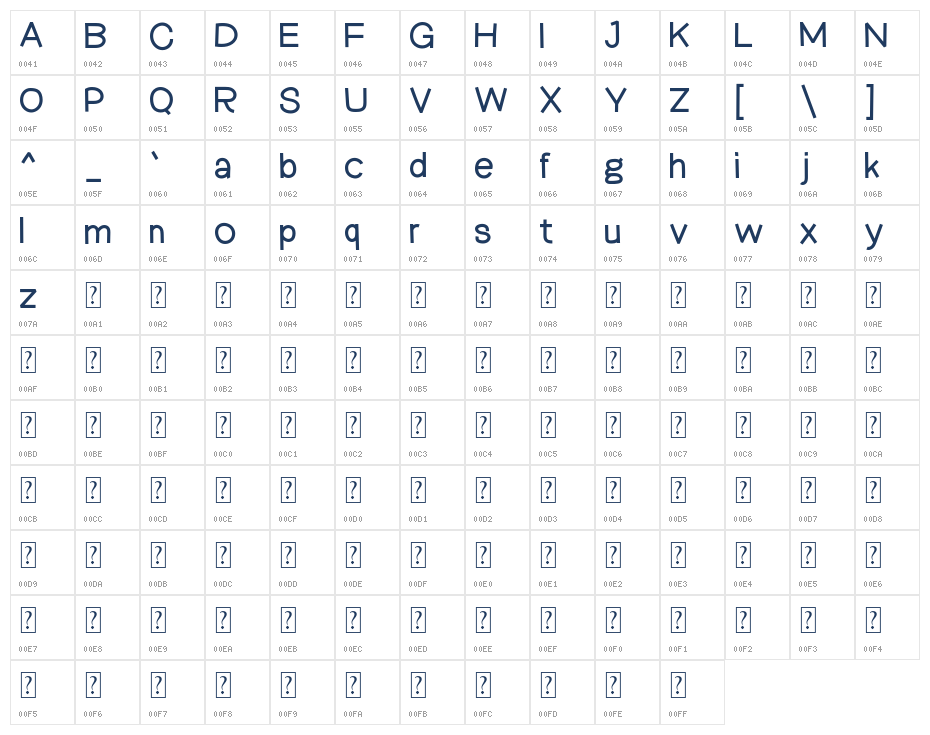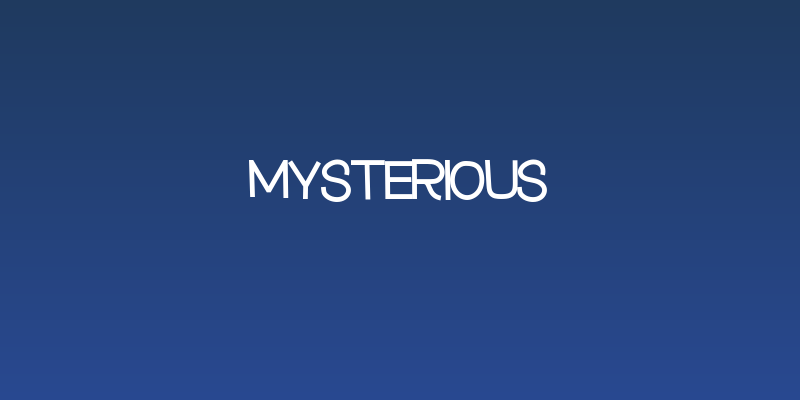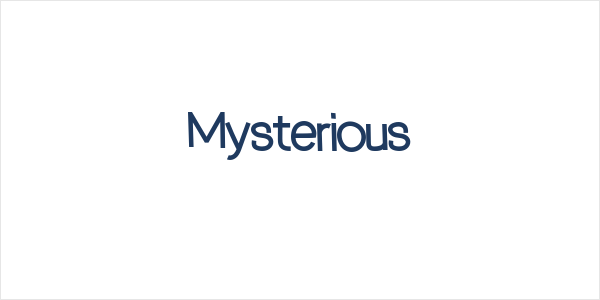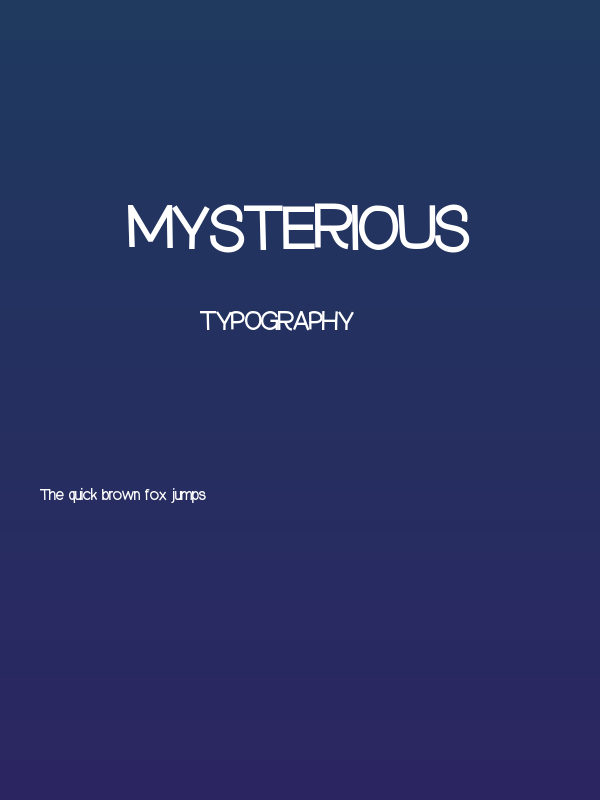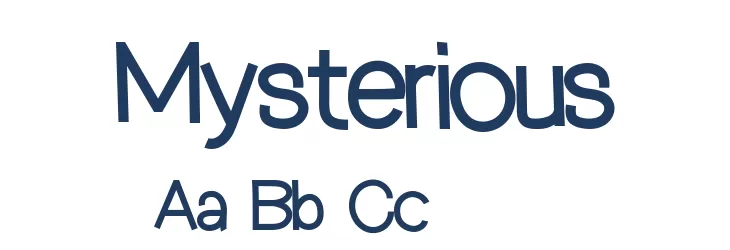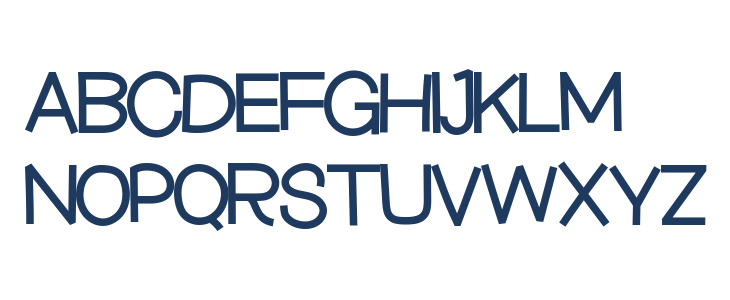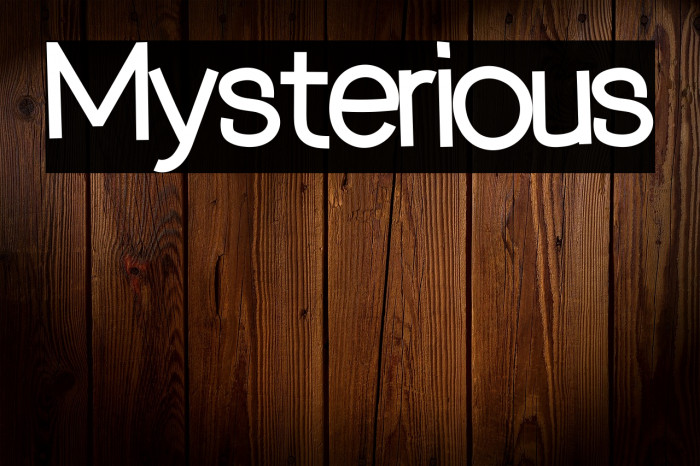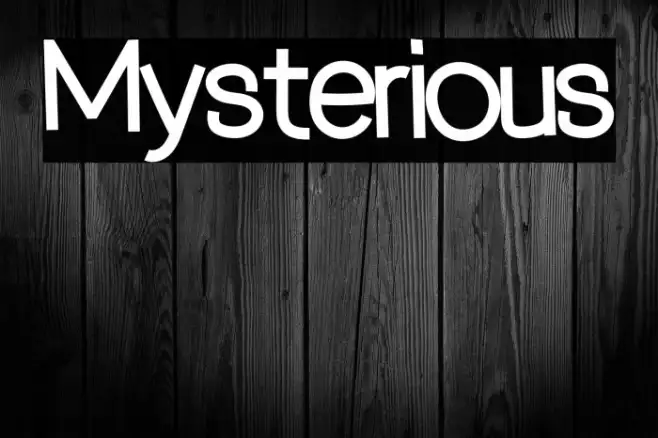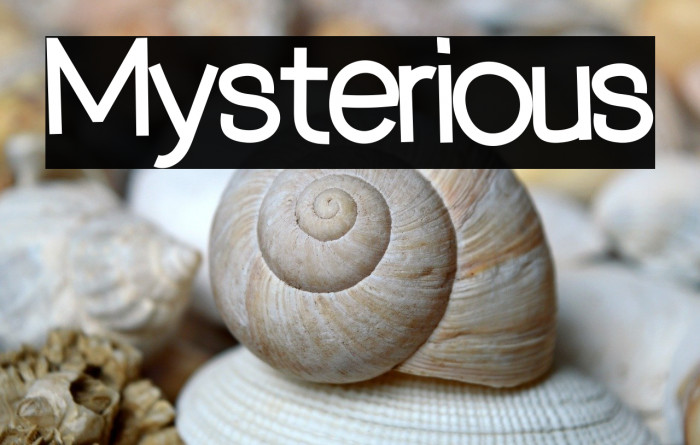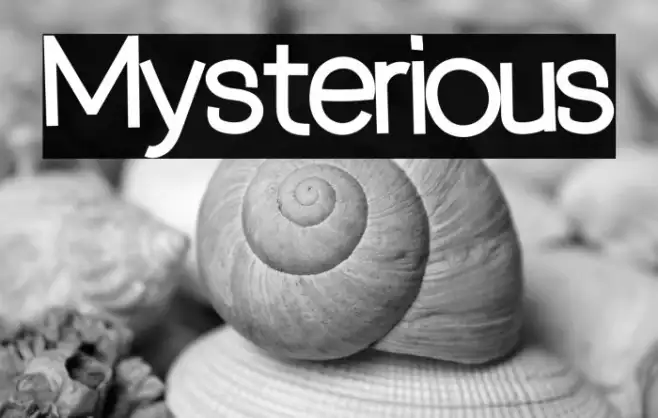
Mysterious Font
Mysterious Description
A modern, geometric sans-serif font with a slightly playful and informal style. The characters are clean, with consistent stroke widths and a slight tilt, giving a dynamic appearance.
| Overall Style | Modern, Geometric, Playful |
| Use Case | Headlines, Branding, Digital Media |